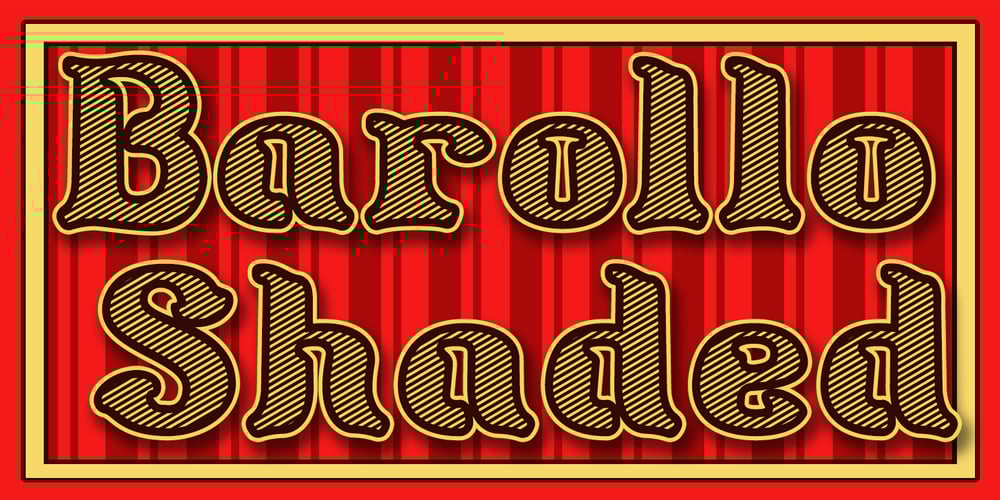
Barollo
Barollo font
Barollo Font Family was designed by Paul James Lloyd and published by Greater Albion Typefounders. Barollo contains 2 styles and family package options. Barollo is a boisterous, lively, display family of two typefaces, offered in regular and shaded form. It’s ideal for eye-catching banners and posters that call for clear and forceful type, with a sense of fun and life.